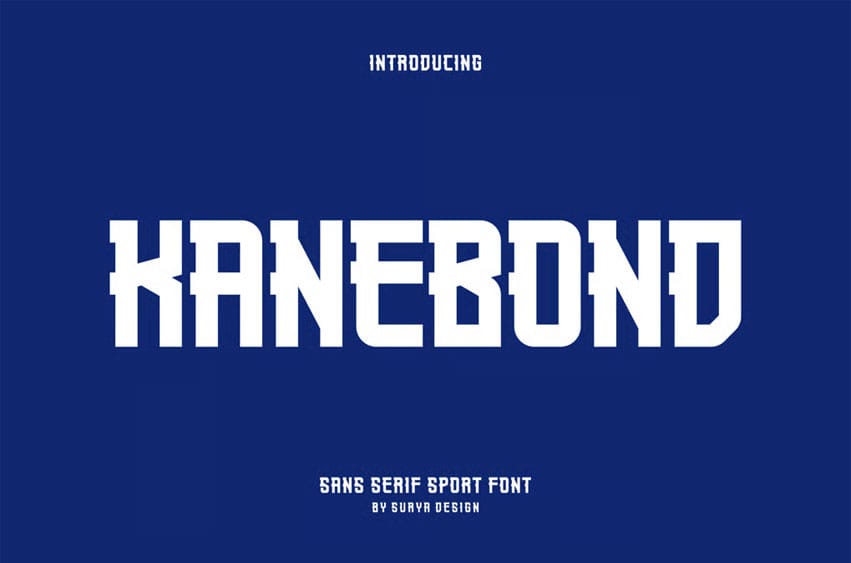
Kanebond Font
Kanebond Font Modern Font is a bold and authentic display font. The font is suitable for any branding project, like logos, esport, and many more.